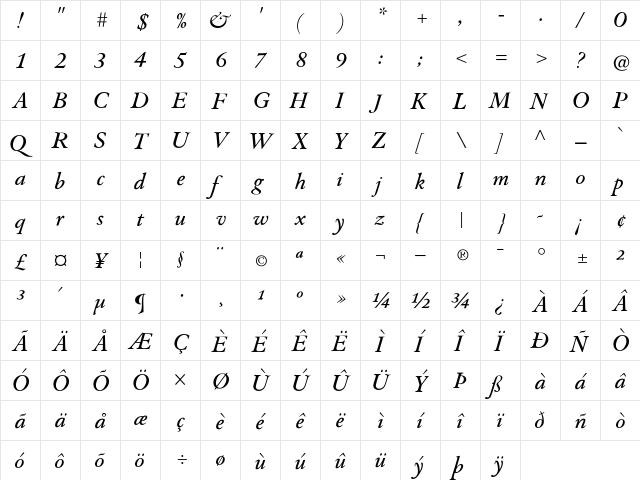
Augereau Bold Italic
| Foundry | Expert Alphabets International, Ltd |
| Designer | Expert Alphabets International, Ltd |
Design Context for Augereau Typeface
Augereau is a composed and adaptable typeface that performs quietly and consistently across a wide range of design contexts. Its italic angle brings a sense of urgency and motion to the letterforms. The heavy weight commands attention and anchors typographic hierarchies.
Pro Tip: Try Augereau for annotation and caption copy alongside an upright companion — the contrast in angle creates a dynamic but ordered typographic system.